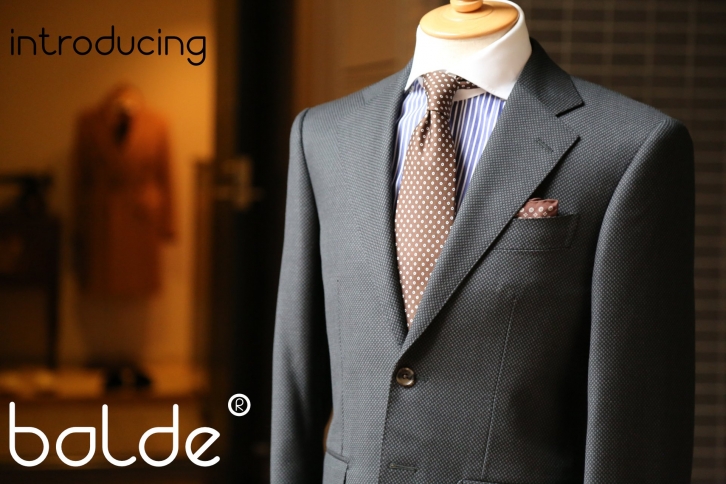
Balde is a trendy and unique font with an authentic style. It was designed by Coretanletter and it's a great choice for creative people who need such a font. It was released on March 11, 2021 and the file size is 4.30 MB. Balde will add an organic vibe to any design idea!